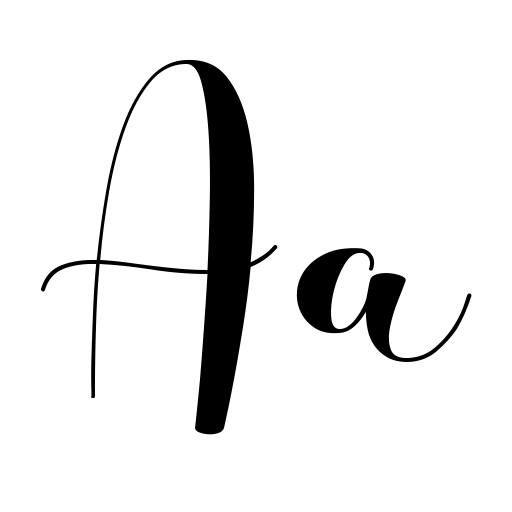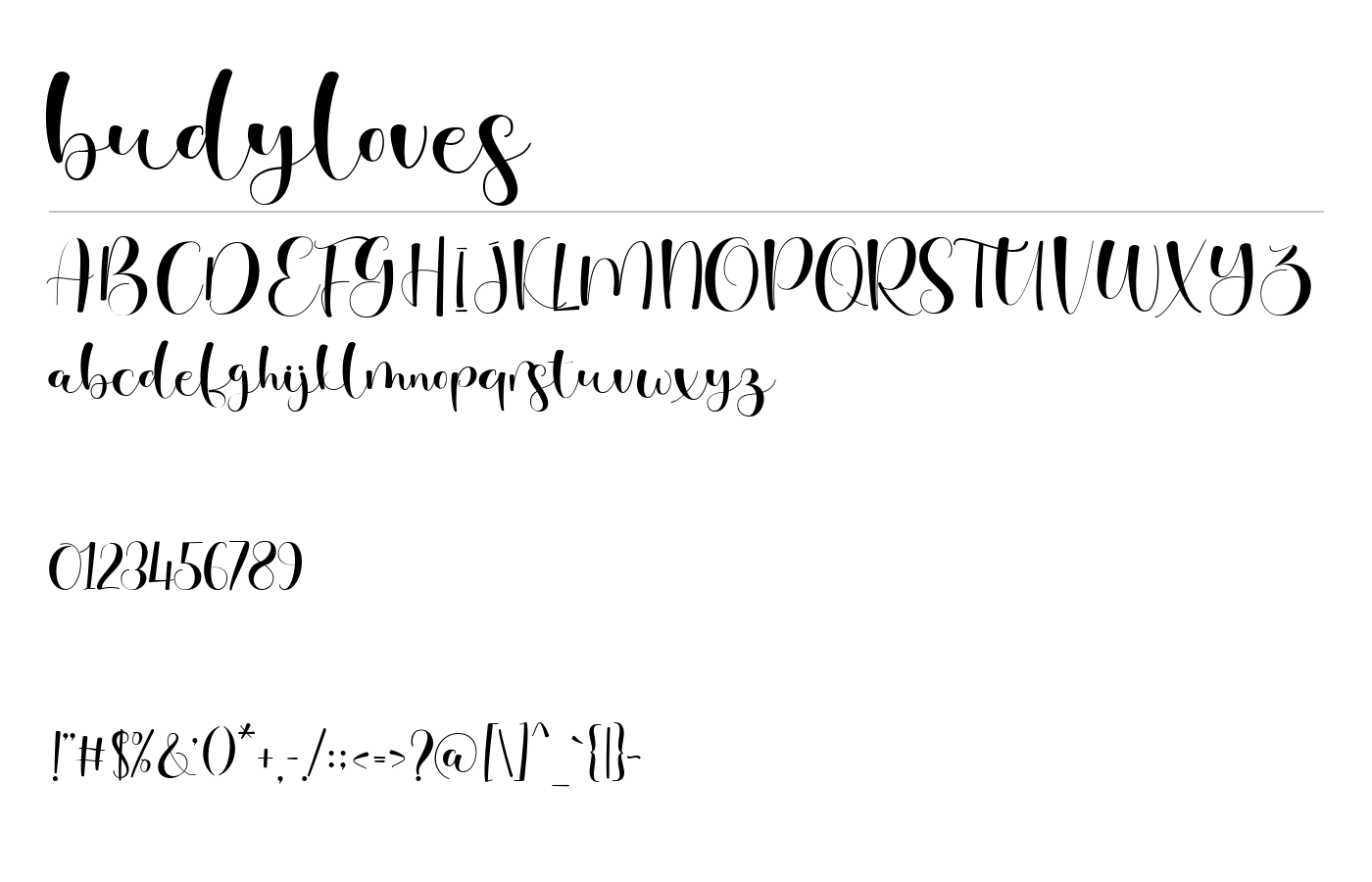
Budyloves is an elegant script font with a playful and delicate personality, featuring flowing, calligraphic strokes and high contrast between thick and thin lines. Its tall x-height, looping swashes, and unique letterforms make it ideal for feminine branding, wedding invitations, and creative headlines where a romantic, handcrafted feel is desired. This font works best in display use, bringing charm and sophistication to logos, packaging, and decorative text.
budyloves Font